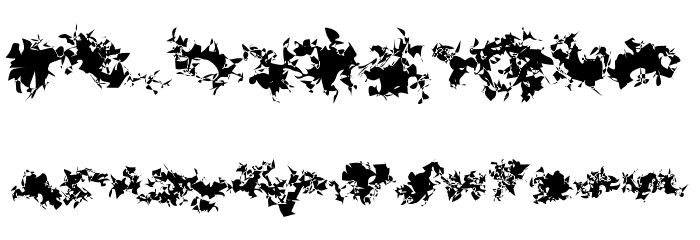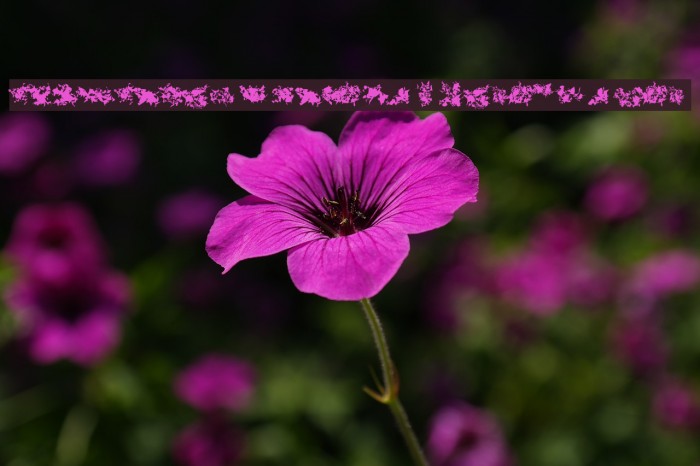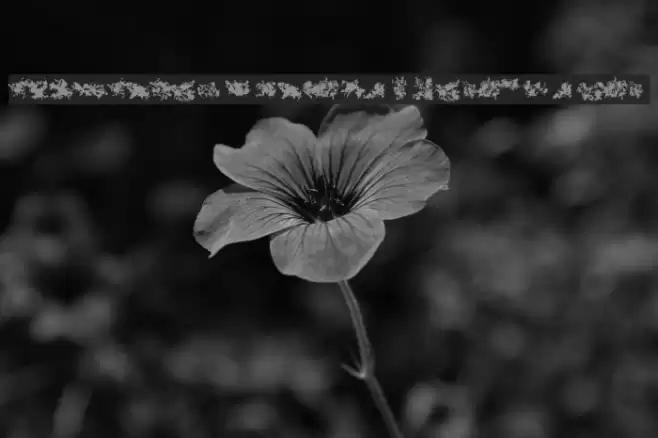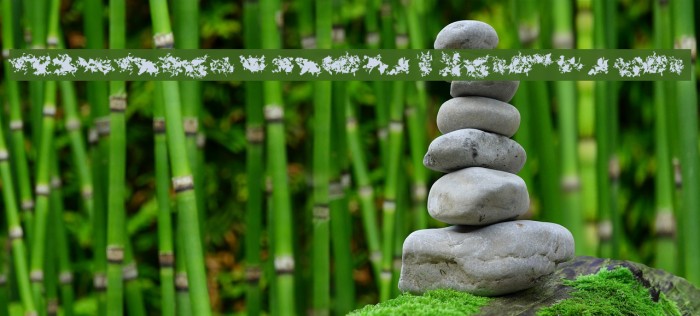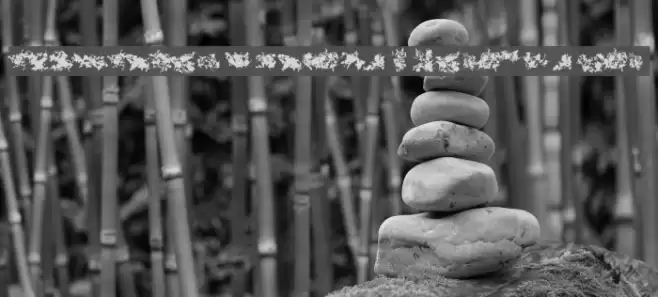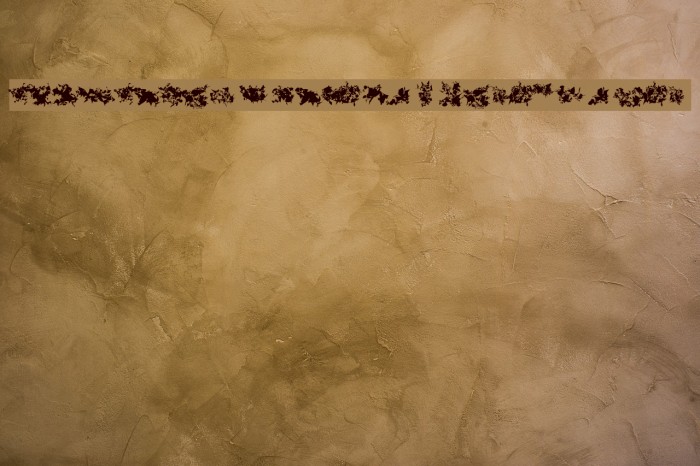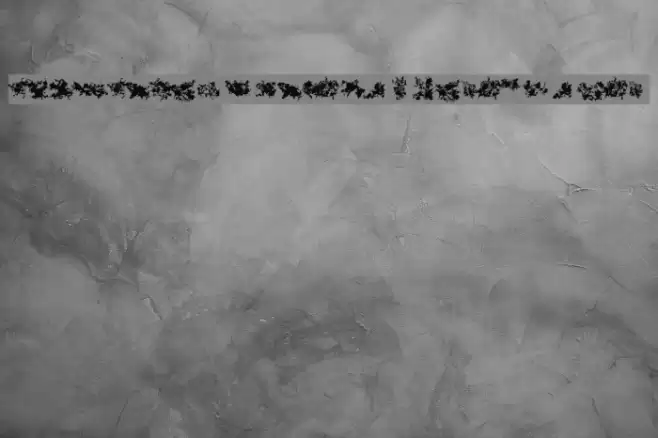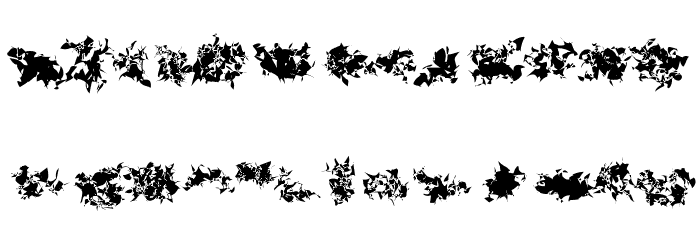
CISF Camouflage Kit Modernized Font
CISF Camouflage Kit Modernized Description
This font features a highly decorative and abstract design, resembling a camouflage pattern. Each character is composed of intricate shapes and forms that create a sense of movement and complexity. The design is bold and eye-catching, making it suitable for projects that require a strong visual impact. The characters are not easily distinguishable at first glance, adding a layer of mystery and artistic flair. This font is not intended for readability in large bodies of text but rather for decorative purposes where its unique style can be showcased.
| Use Case | Logos, Posters, Artistic Designs |
| Proposed Projects | This font is perfect for artistic designs, posters, album covers, or any project that benefits from a bold, abstract visual element. |